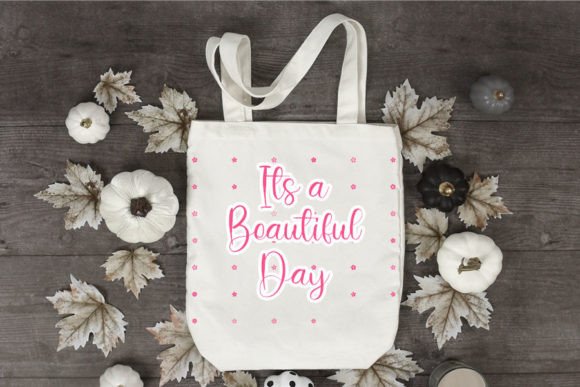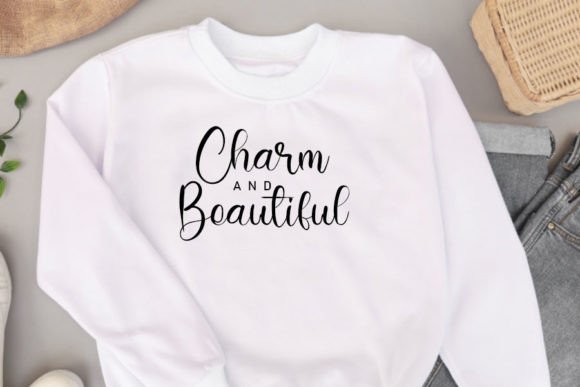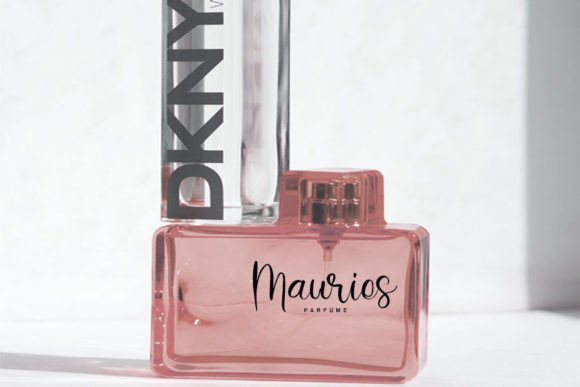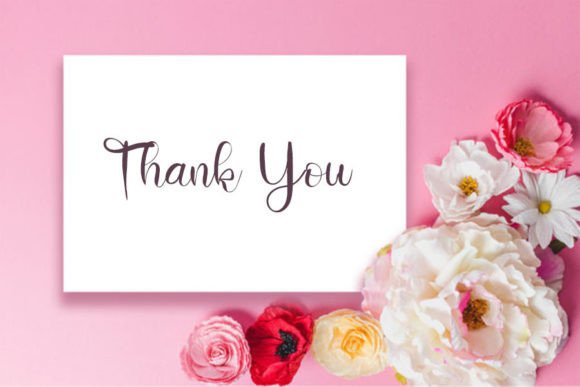
About Sweetheart Font
A Relaxed and Playful Handwritten Script
If you’re searching for a typeface that brings warmth and charm to your designs, the Sweetheart Font download is just right. With its smooth curves and casual style, this handwritten font delivers a friendly and approachable feel that works well across a wide variety of projects.
Versatile Enough for Any Creative Project
Sweetheart Font is ideal for:
Greeting cards and stationery
DIY crafts and scrapbooking
Branding and product packaging
Social media posts and digital content
Wedding invitations and event graphics
Its laid-back yet charming look makes it perfect for designs that aim to feel personal and heartfelt.